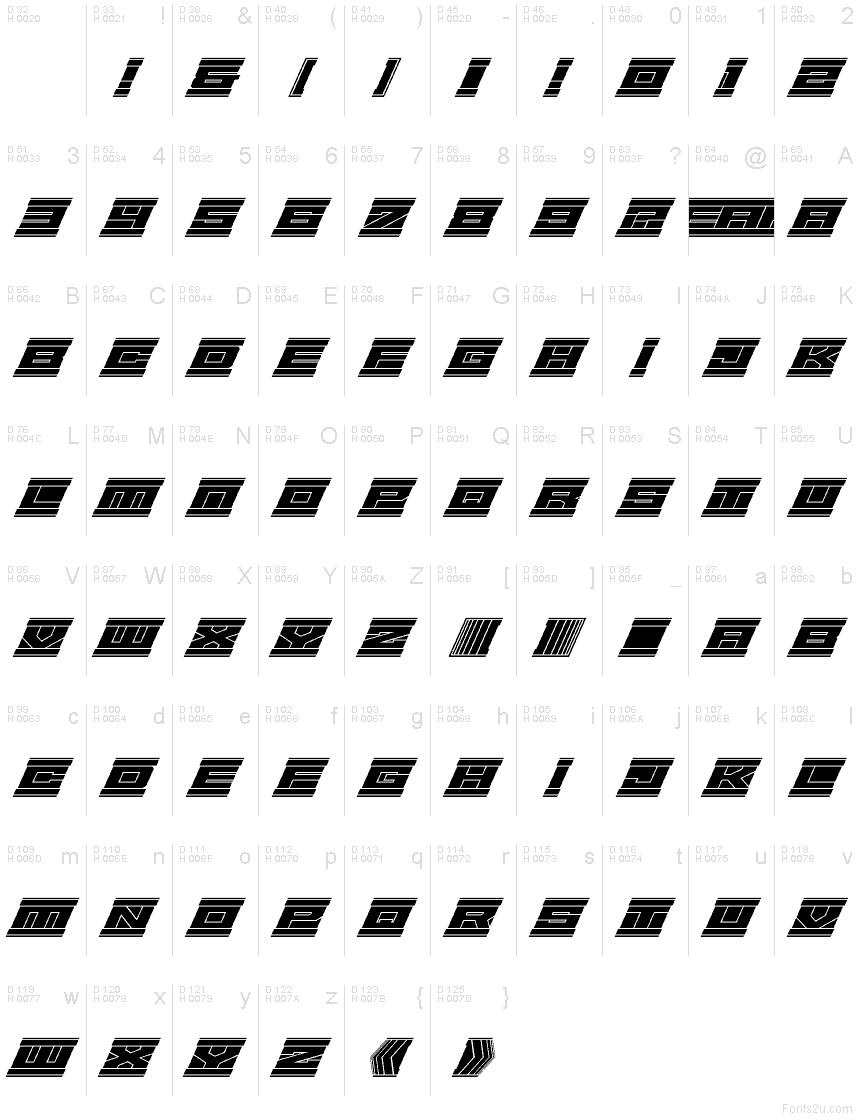
Gear-Black
Gear6 Black font by Youssef Habchi is a free techno display font built around momentum. The Gear6 family’s Black cut runs on a hard forward slant, with blocky letter panels and crisp inline cuts that read like speed stripes. It feels engineered—blade-sharp angles, dense fill, and clean negative channels—so headlines snap with a mechanical, racing pulse.
Using Gear6 Black, you get instant motion for esports logos, racing posters, automotive branding, sci‑fi titles, tech event badges, and bold product packaging. This free font thrives large, where its slanted rhythm and contrast can breathe; try tracking slightly open. Pair it with a calm, neutral grotesk for body copy to keep the message on track.